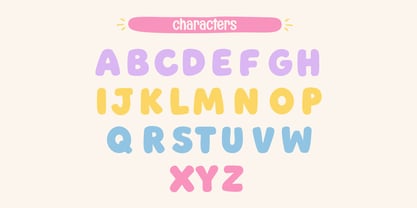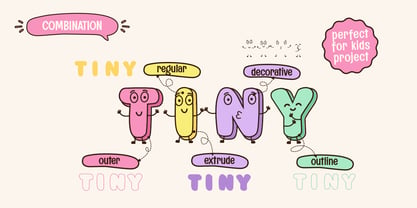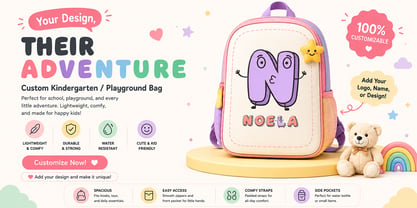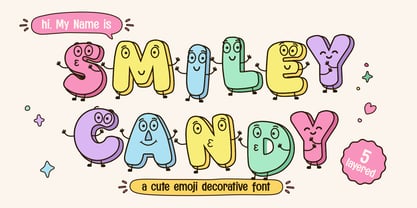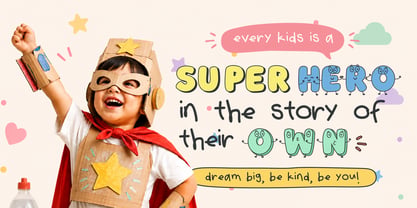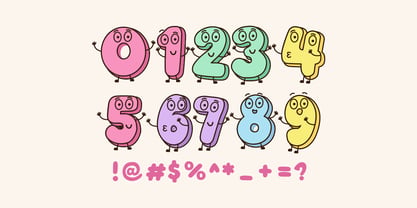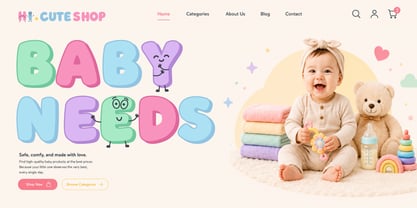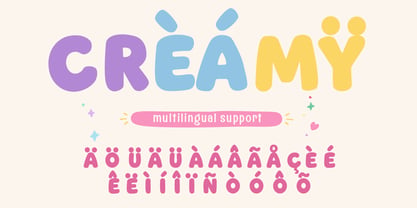
Smiley Candy is a cute emoji decorative display font designed to bring happiness, creativity, and playful energy into typography. Inspired by kawaii culture, cartoon illustrations, emoji expressions, and cheerful doodle art, this typeface combines bold rounded forms with decorative layered effects to create a fun and memorable visual identity.
The font features 5 layered styles: Regular, Outline, Extrude, Outer, and Decorative. Each style is designed to function individually or as part of layered typography compositions. The Regular style serves as the core display layer with soft rounded shapes and friendly proportions. Outline adds hand-drawn contours that emphasize the playful cartoon aesthetic. Extrude introduces dimensional depth and a 3D effect that creates stronger visual impact. Outer enhances the silhouette of each letter for better visibility, while Decorative includes expressive emoji-inspired accents and playful visual details.
Smiley Candy includes uppercase characters, numbers, and punctuation that are designed consistently with the cheerful concept. The rounded structures and expressive curves make the font highly suitable for playful visual themes while maintaining strong readability.
The multilingual support allows Smiley Candy to be used in international creative projects while preserving its visual consistency across multiple languages.
This font is ideal for projects related to children, entertainment, social media, education, stickers, packaging, merchandise, toys, branding, posters, and digital content. Its cheerful visual style makes it highly effective for creating positive and engaging visual experiences.
The layered font system allows designers to experiment with vibrant color combinations and dimensional typography effects. By combining multiple layers, users can create dynamic and colorful display text suitable for modern design trends.
One of the strongest characteristics of Smiley Candy is its emotional appeal. The cute expressions and rounded forms create a sense of friendliness and joy, making the typography feel alive and approachable. This makes the font highly suitable for brands and projects targeting youthful or family-oriented audiences.
From a technical perspective, the font is optimized for both digital and print environments. Its vector-based construction ensures clean rendering across different sizes and formats.
Smiley Candy also performs exceptionally well in headline applications. The bold decorative forms naturally attract attention and help establish strong visual hierarchy in layouts. Designers can combine it with minimalist secondary fonts for balance and readability.
The fusion of emoji culture, kawaii aesthetics, and decorative typography creates a modern visual identity that feels trendy, playful, and highly expressive. This combination makes Smiley Candy suitable for contemporary creative industries and social-media-focused branding.
Overall, Smiley Candy is more than a decorative display font. It is a creative typography system designed to transform text into cheerful visual storytelling filled with personality and fun.